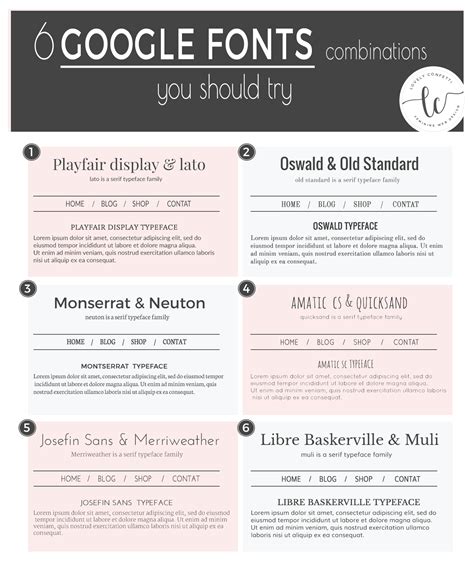
Classic, elegant, modern, creative, and more. Web 30 font pairings to use in your designs. Open a google doc, slides or sheets file. Web top 20 one page websites and templates [for beginners & pros] stunning google font pairings sorted by style: Montserrat black & raleway regular. Web here’s how to access the google font library: Because of how clear and balanced the typeface is, you will usually see this style being used on. Montserrat is a font designed by julieta ulanovsky, sol matas, juan pablo del peral, and jacques le bailly, who. Each pairing comes with matching colors to. Click the font dropdown below the file menu.